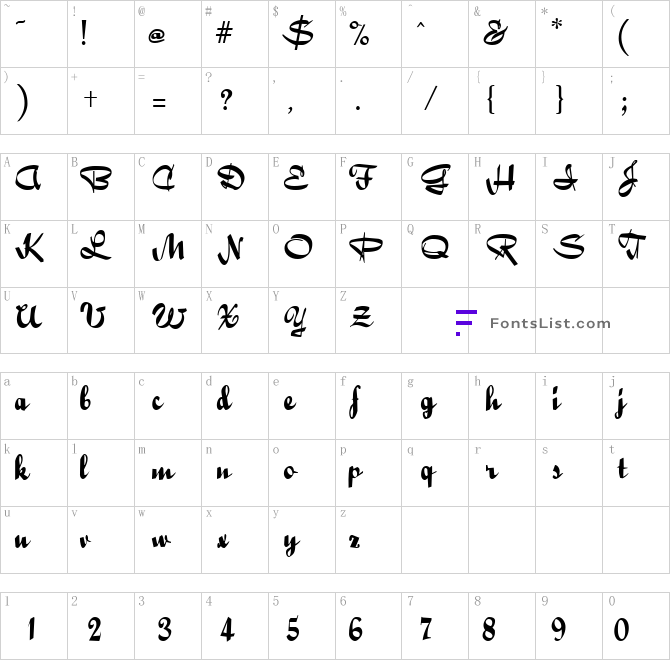
• Font Name:Bailey
• Subfamily:Normal
• Subfamily:Weatherly Systems, Inc. Bailey Regular
• Full Name:Bailey Regular
• Weight:5
• PostScript:Bailey
Bailey-Regular.ttf is a very beautiful artistic font, Bailey-Regular.ttf is widely used in the design and printing of various books and pictures,Bailey-Regular.ttf has a strong visual impact,Bailey-Regular.ttf is a commonly used font in newspapers, magazines and books, and is used in posters, e-commerce Poster design, store design, logo design, font design and other fields.Bailey-Regular.